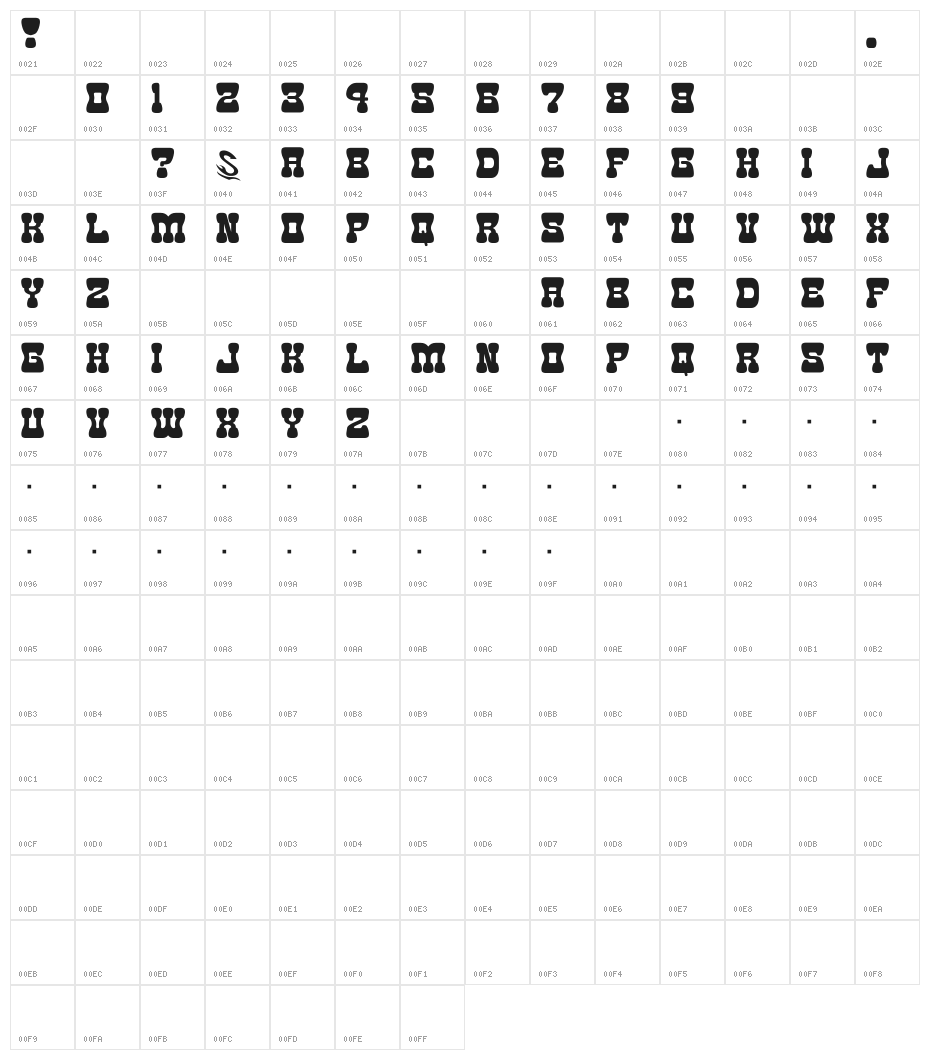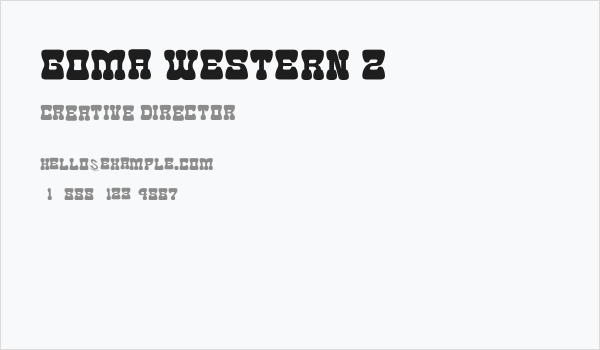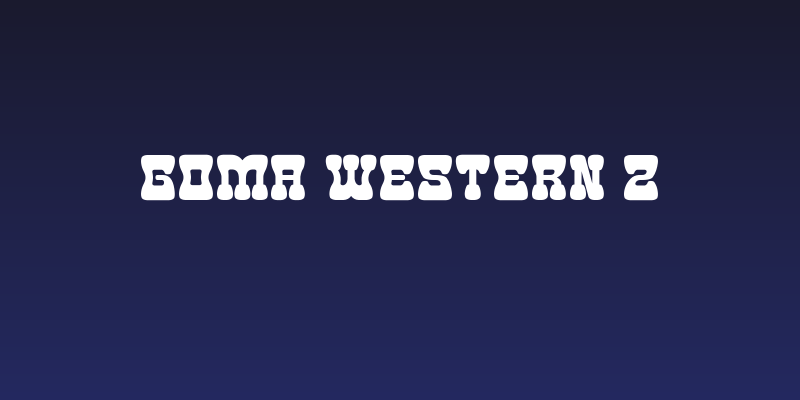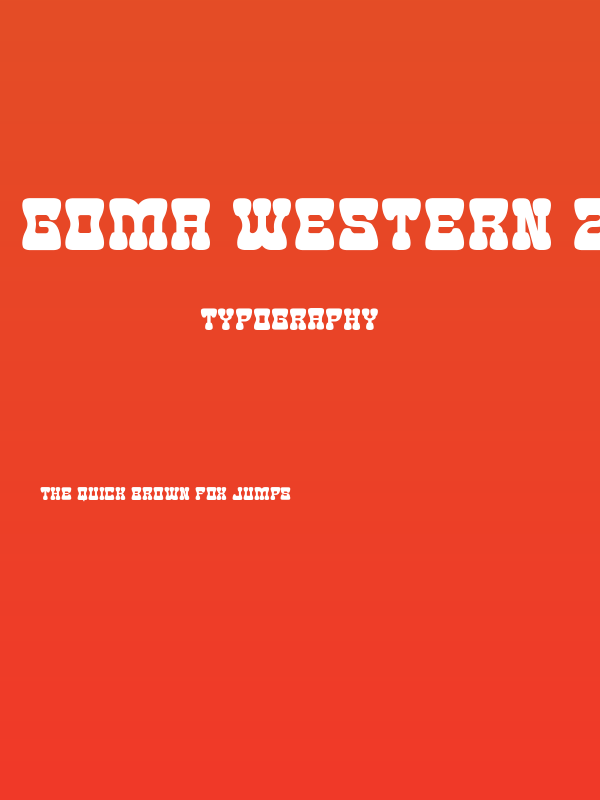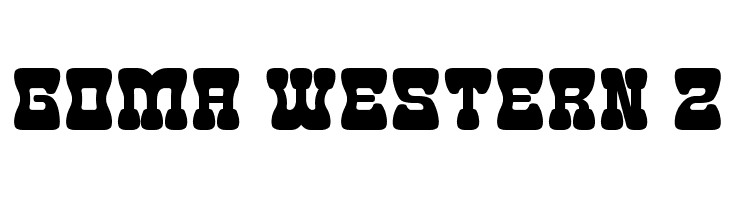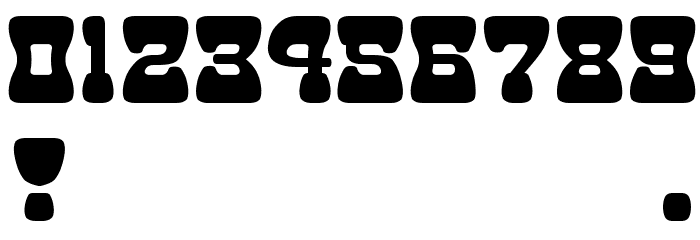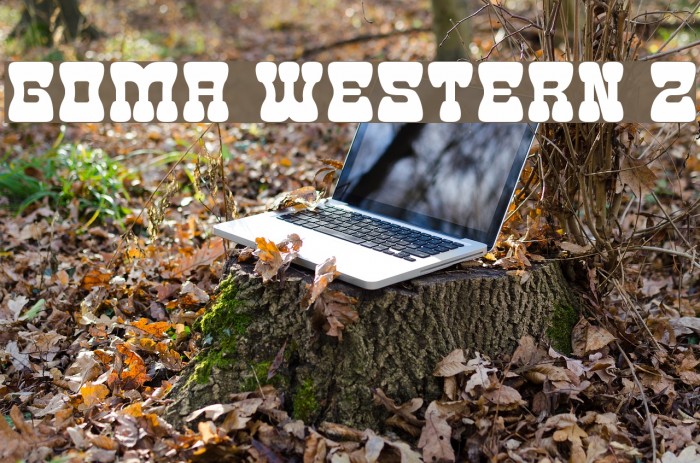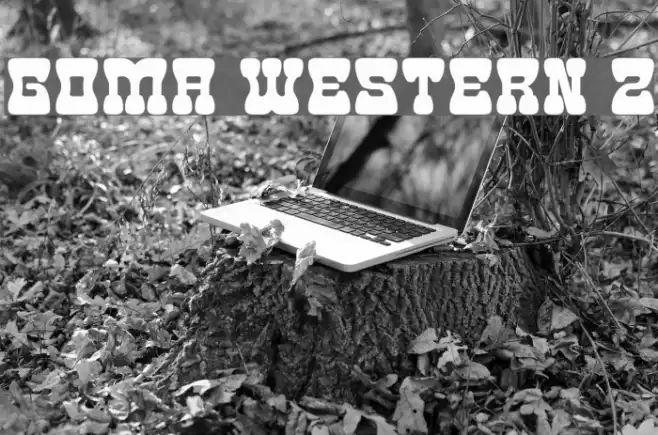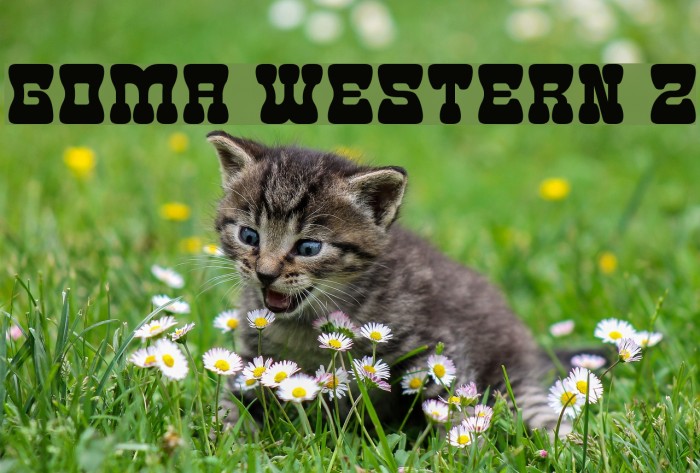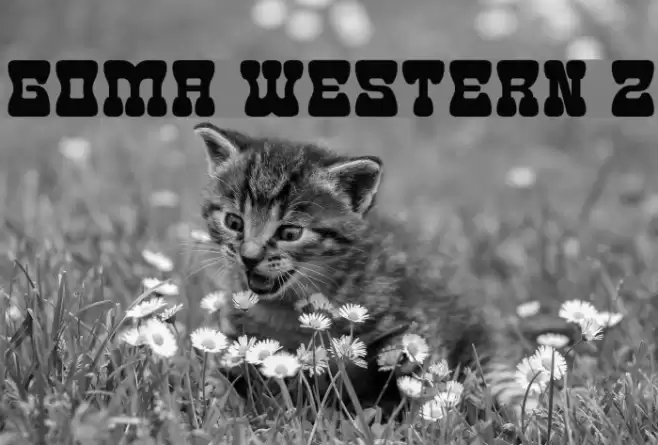
Goma Western 2 Font
Goma Western 2 Description
This font features a bold and playful design with a distinctly Western flair. The characters are heavily rounded with thick strokes and unique bulbous terminals, giving it a strong and eye-catching appearance. The uppercase letters are uniform in height, while the numbers and special characters maintain the same bold style. The font's design is reminiscent of vintage Western signage, making it ideal for projects that require a touch of nostalgia or a bold statement. Its unique style is both decorative and functional, suitable for a variety of creative applications.
| Overall Style | Vintage |
| Proposed Projects | Ideal for Western-themed posters, vintage signage, playful branding, and creative packaging designs. |